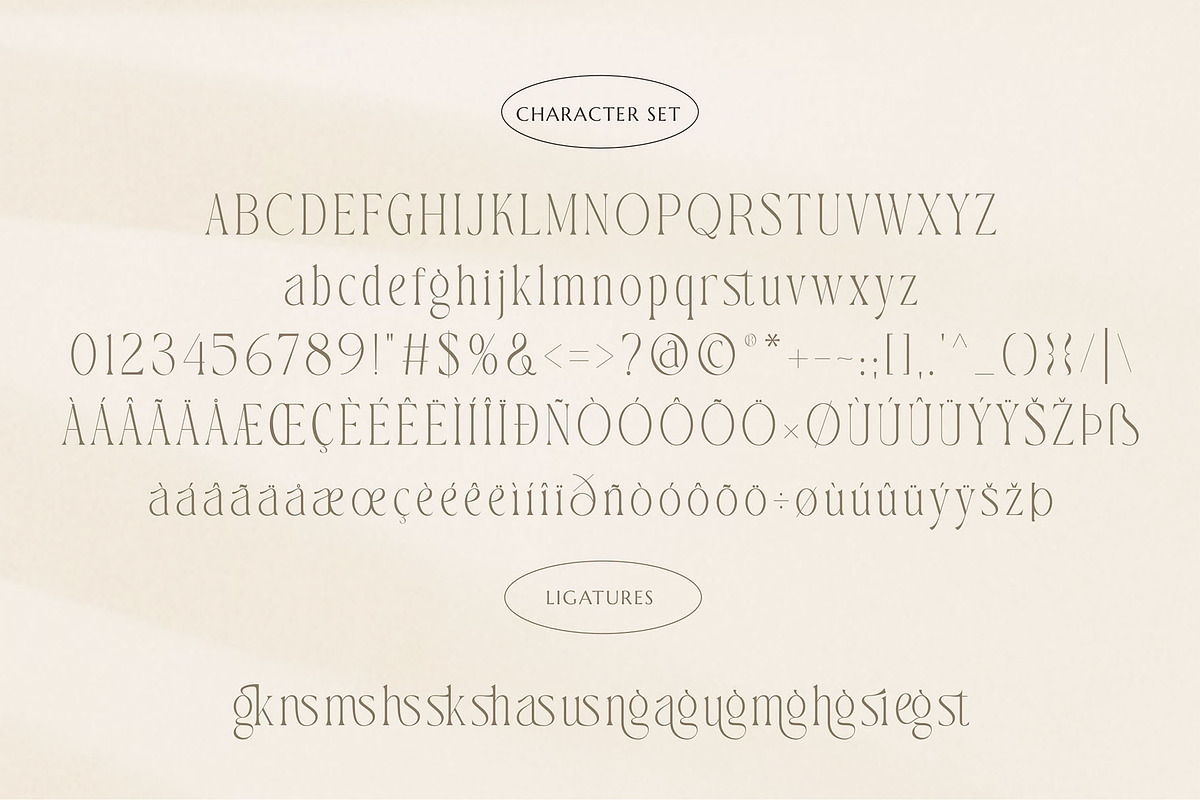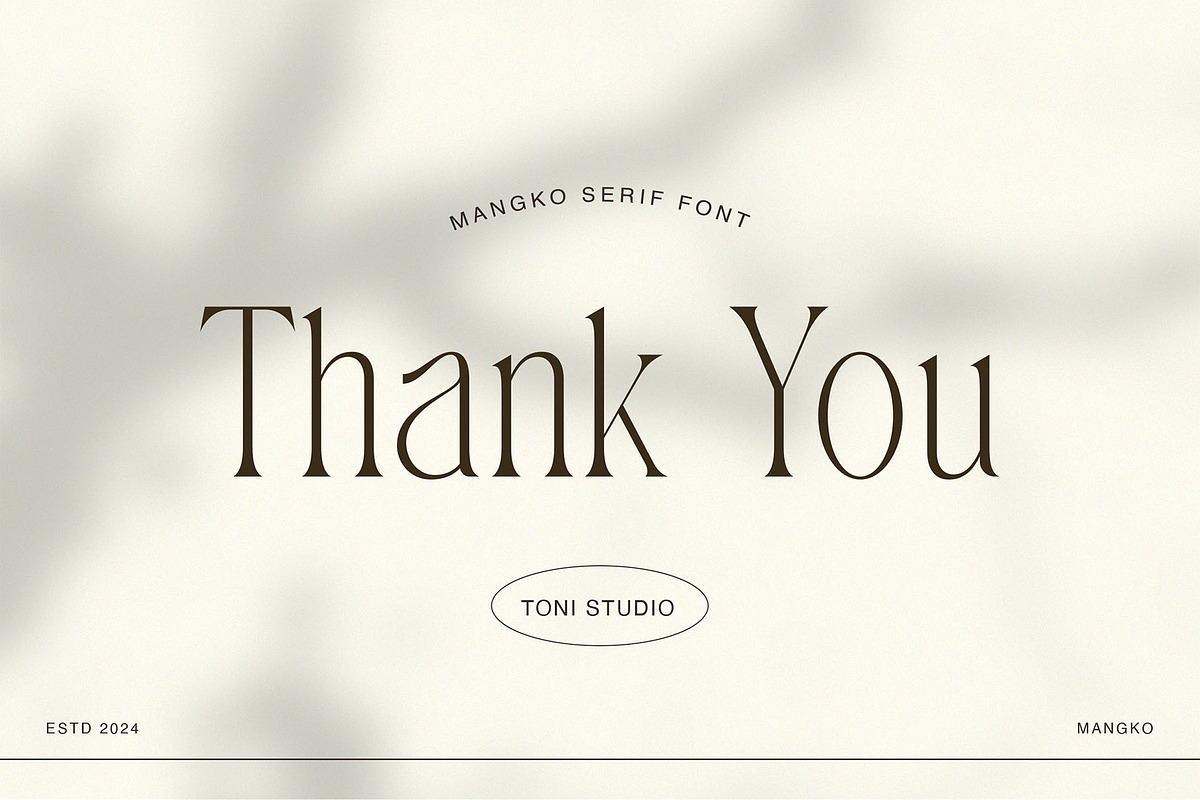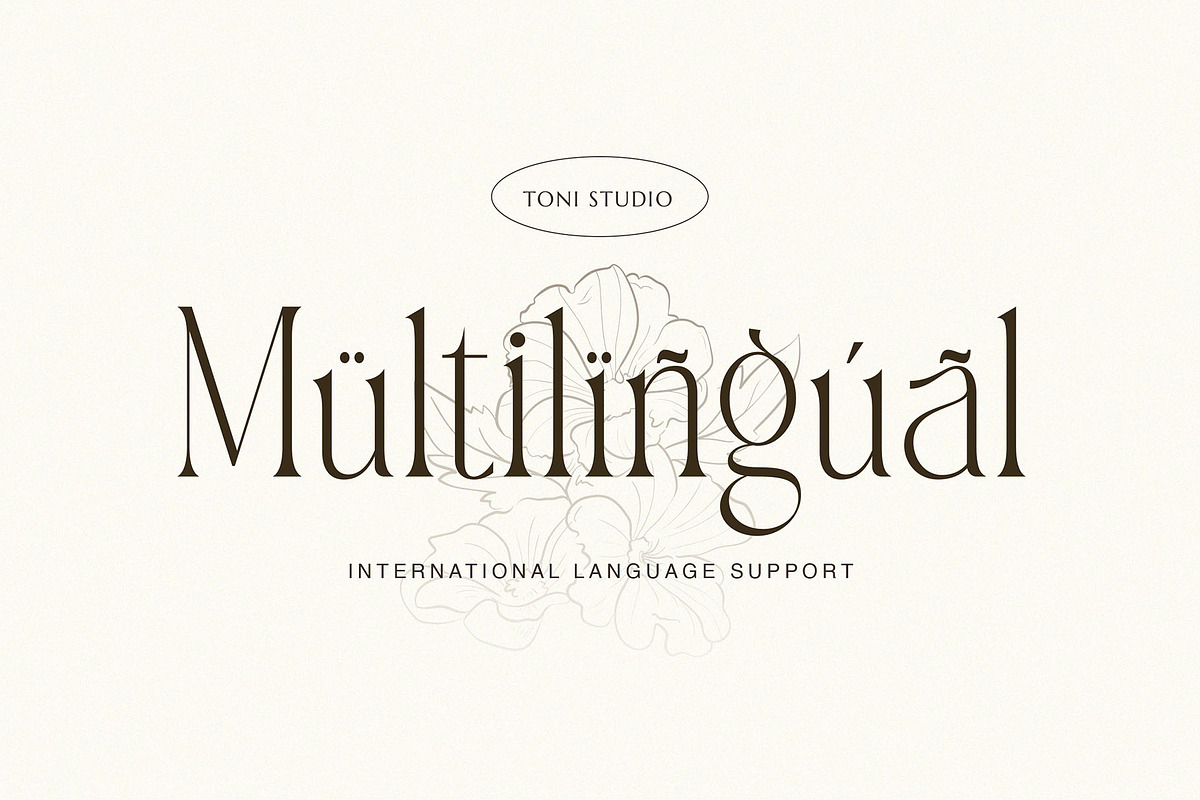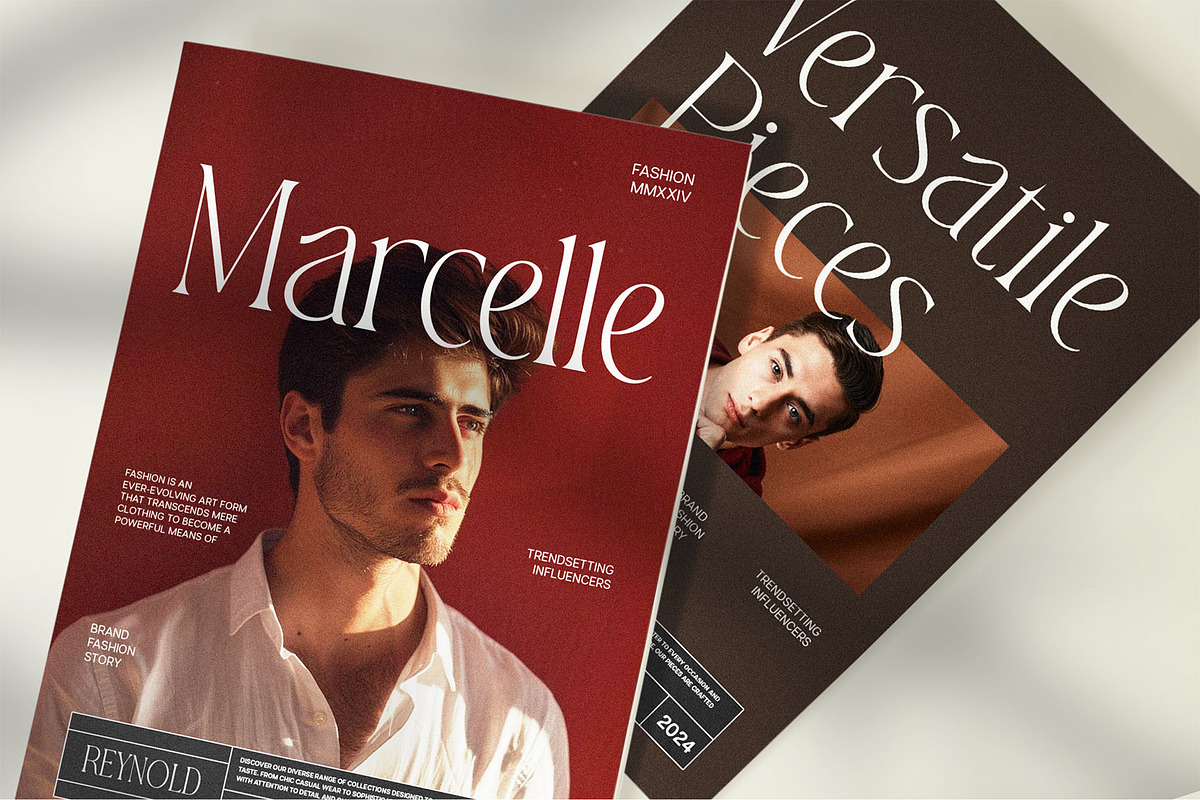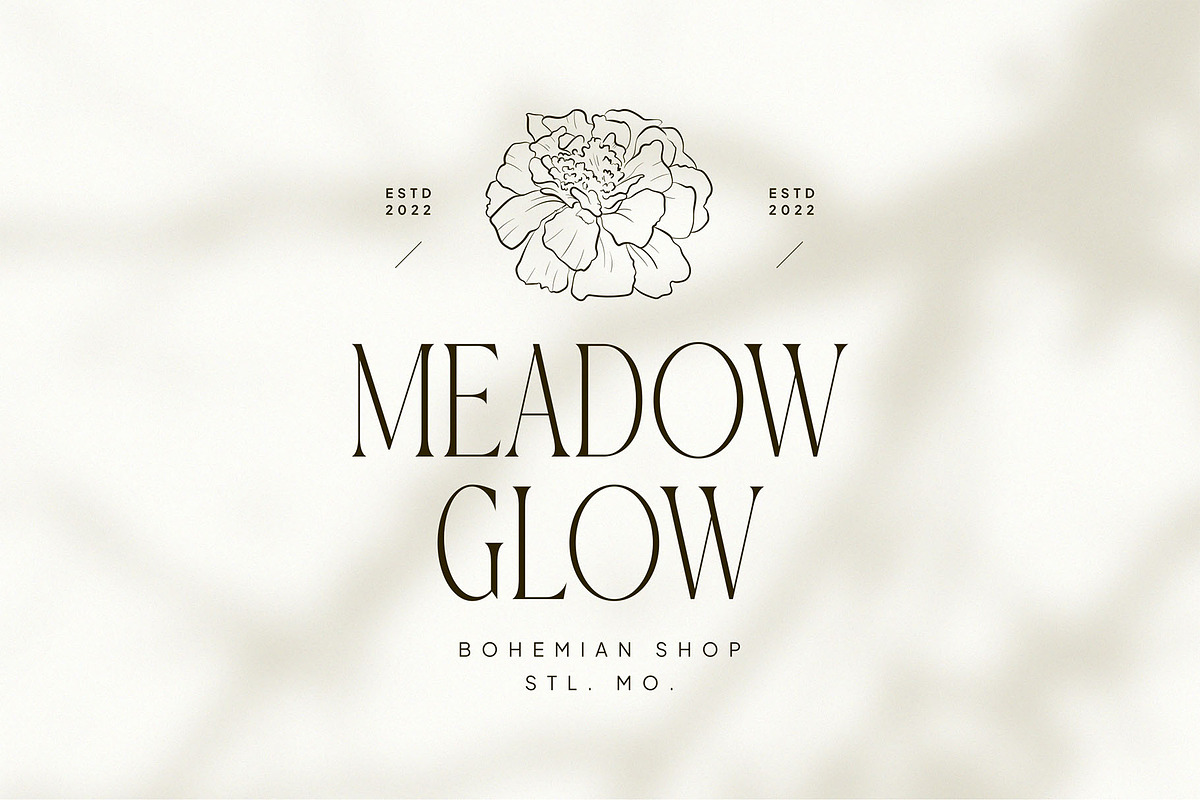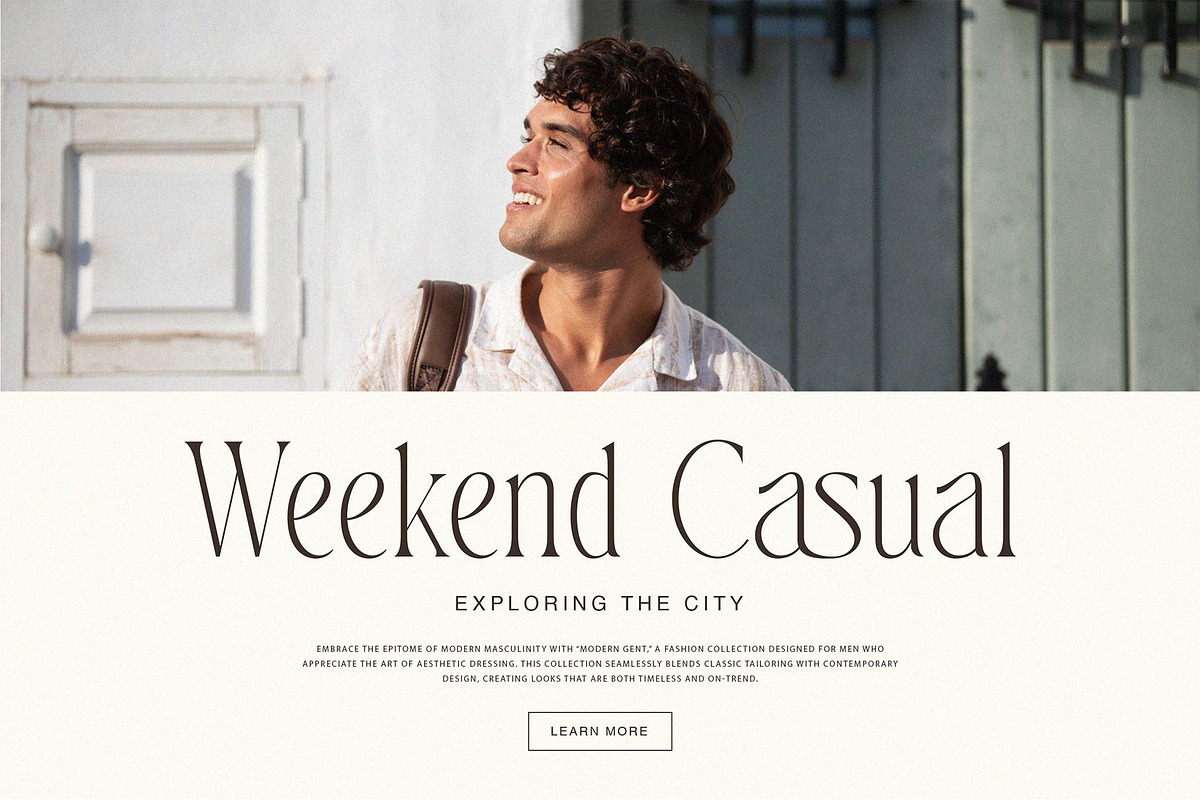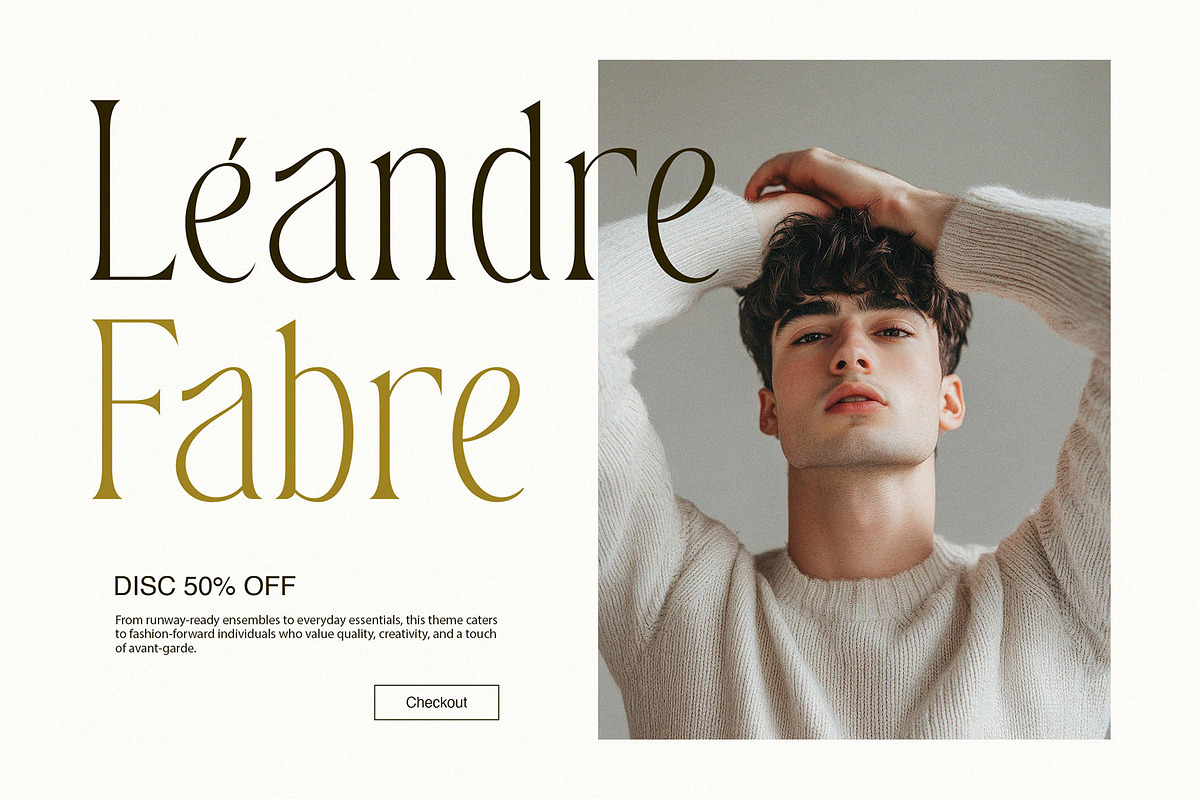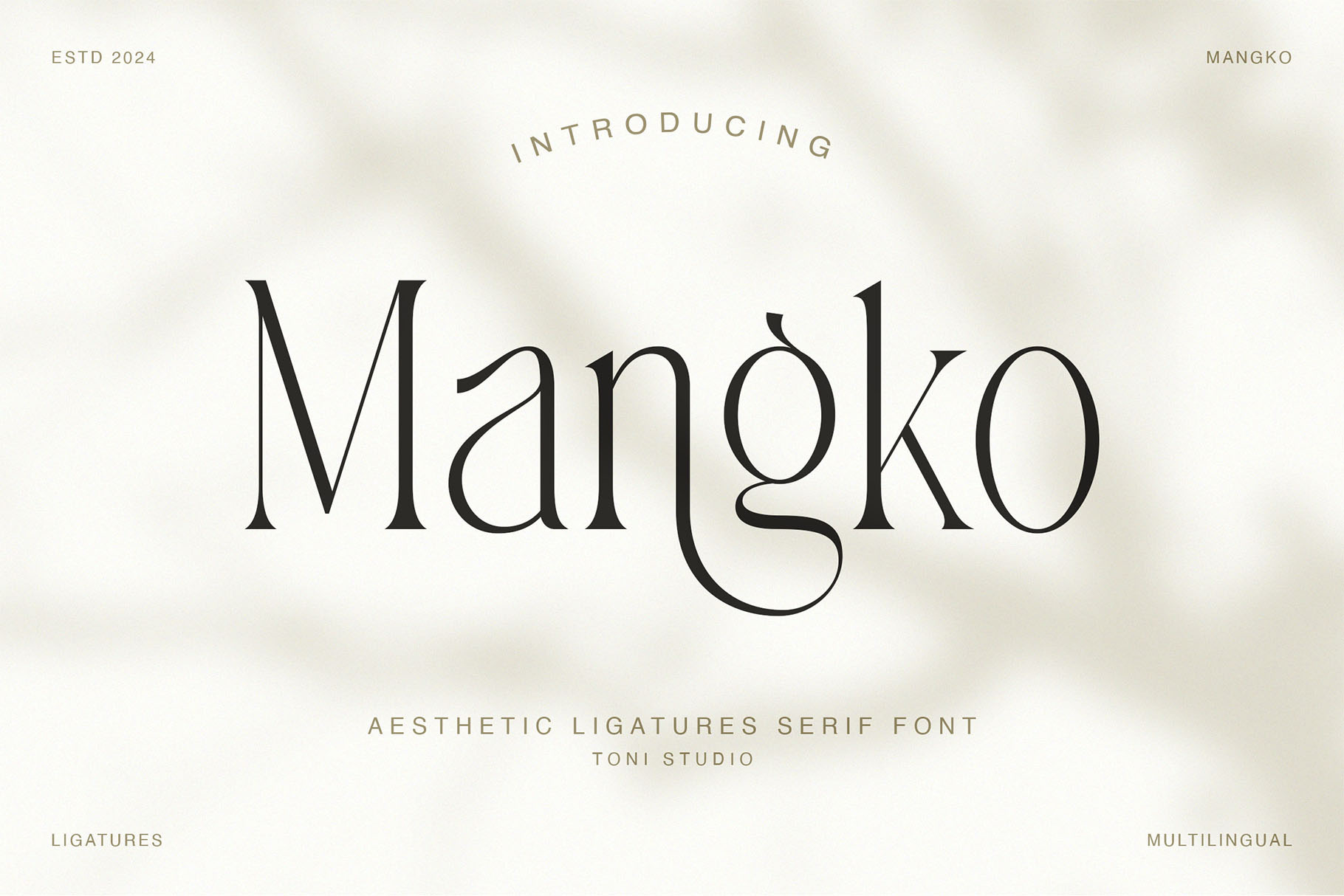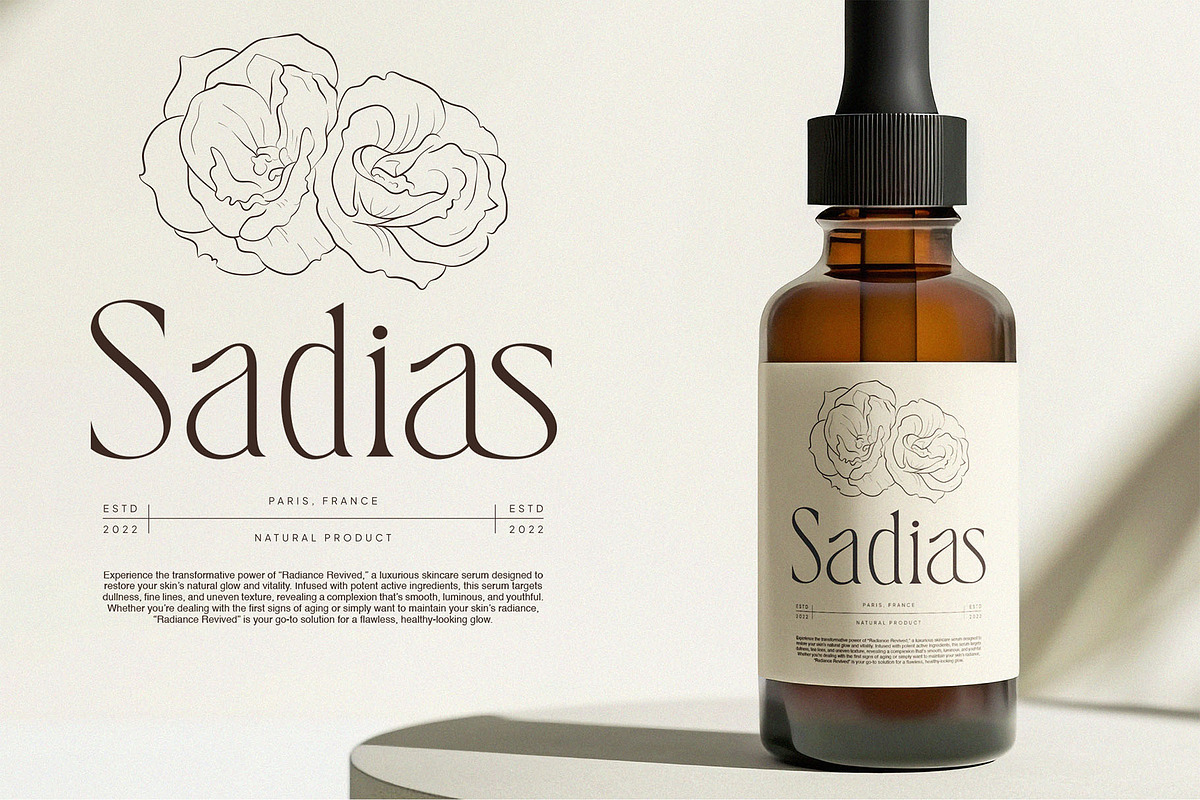
Mangko || elegant font
Introducing “Mangko” is an elegant serif display font. A typeface with an added touch of modernity and elegance with an extra binder and alternative glyphs. Great for branding, logos, invitations, master heads and more. Multilingual support, with uppercase, lowercase, numbers and punctuation marks. Let’s light up your next project with Mangko.